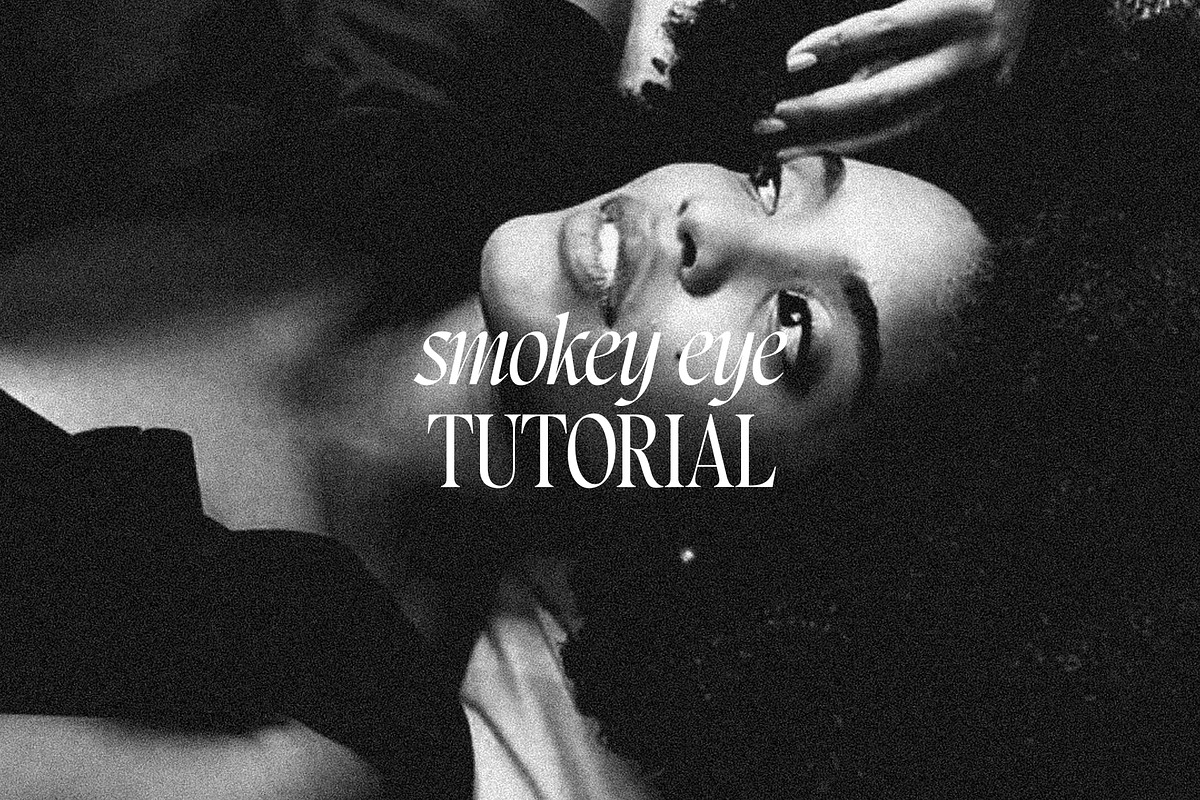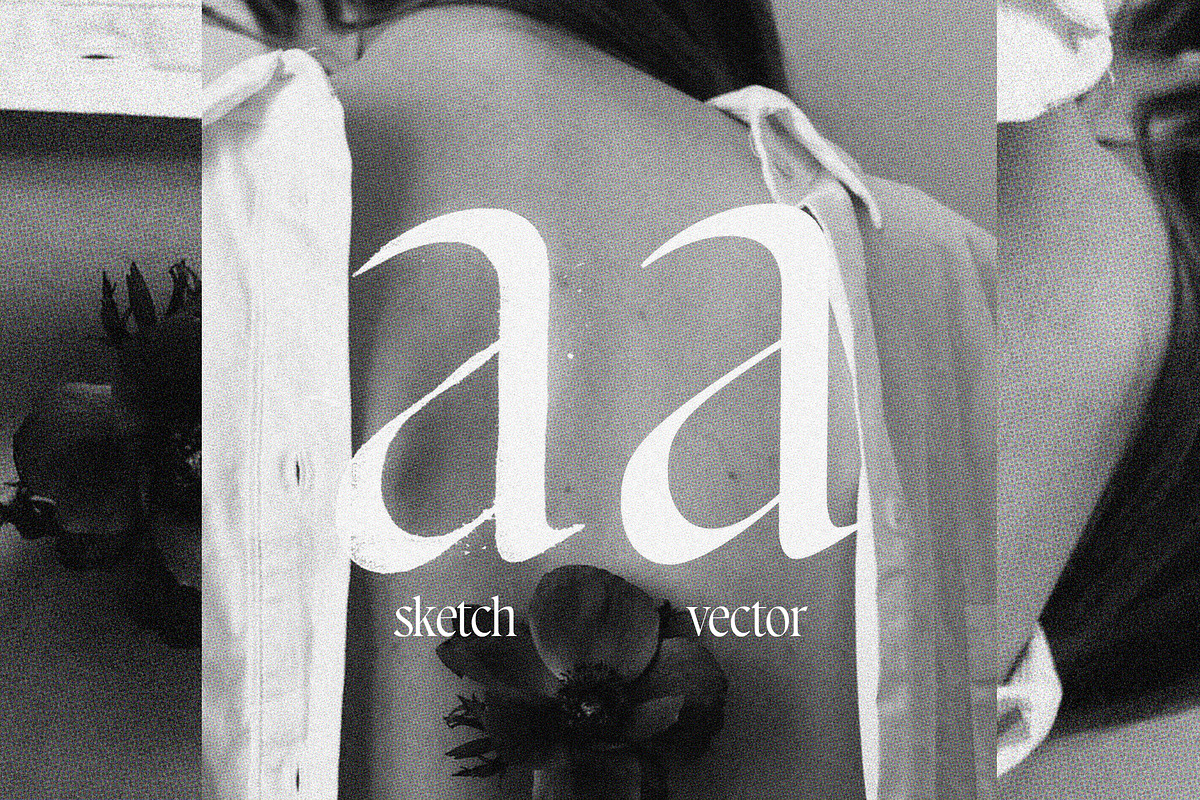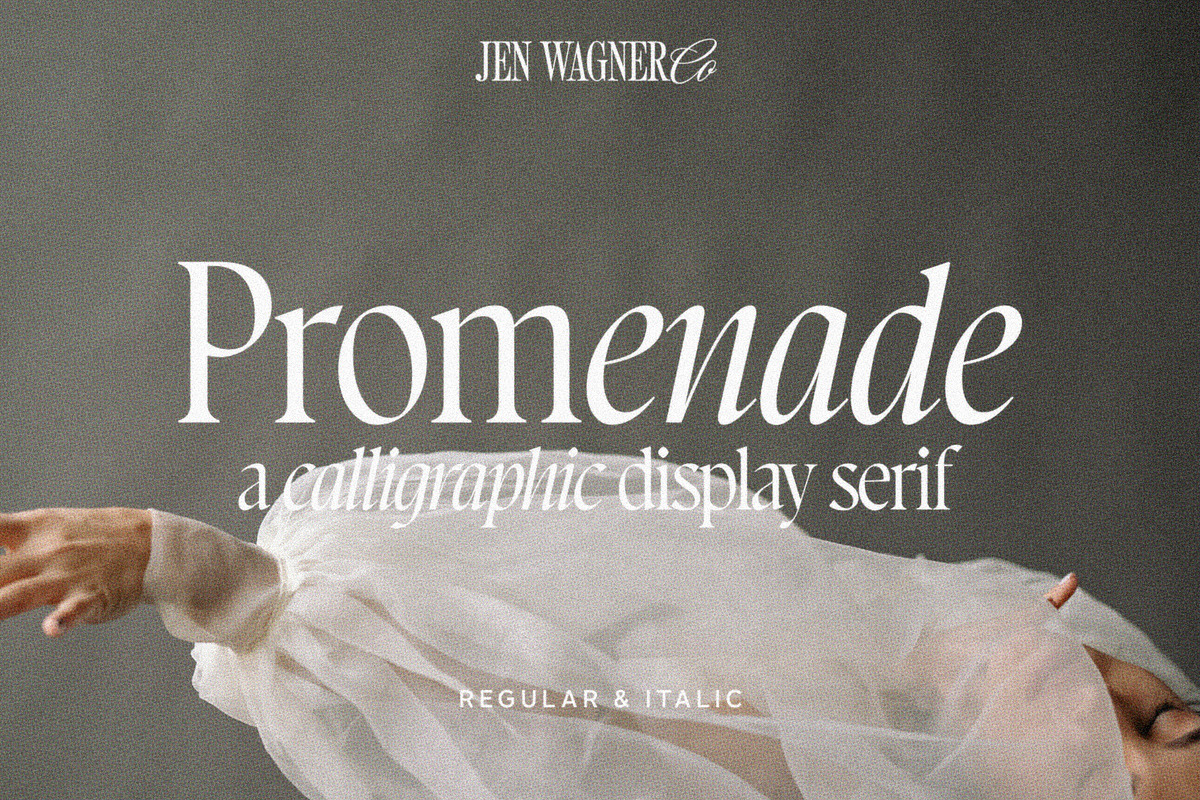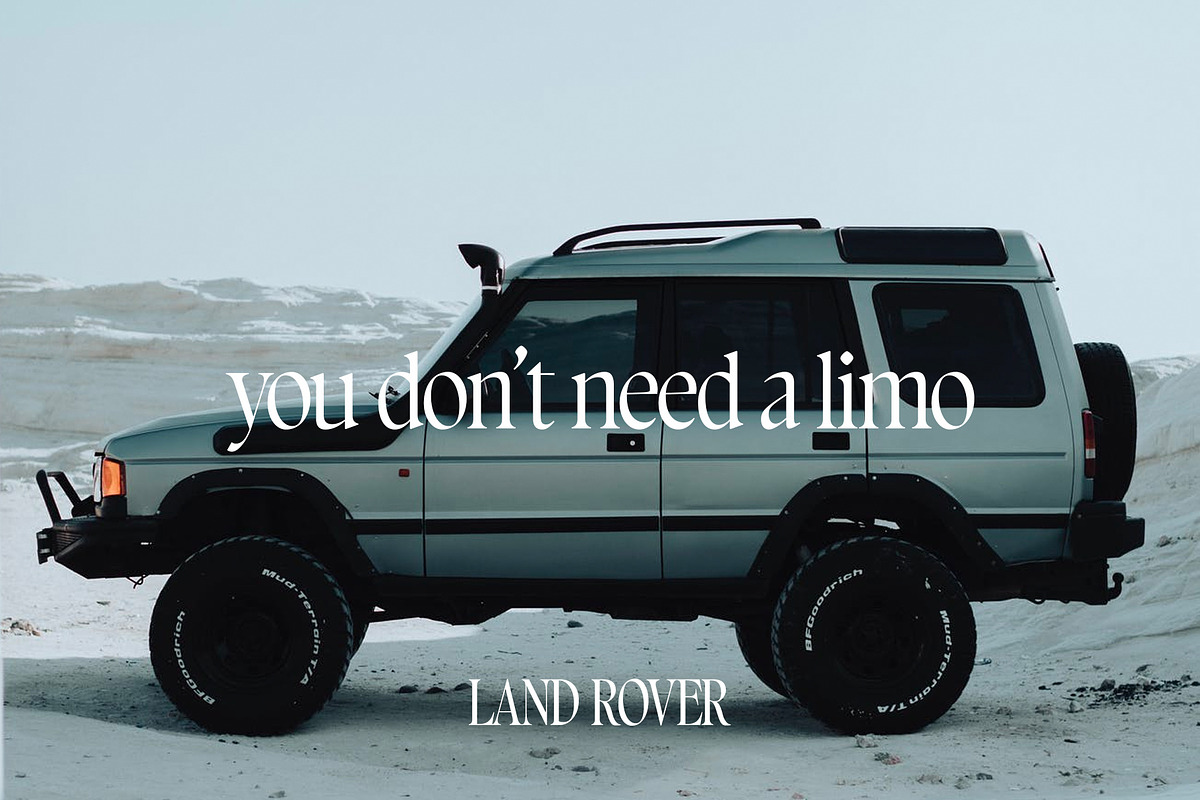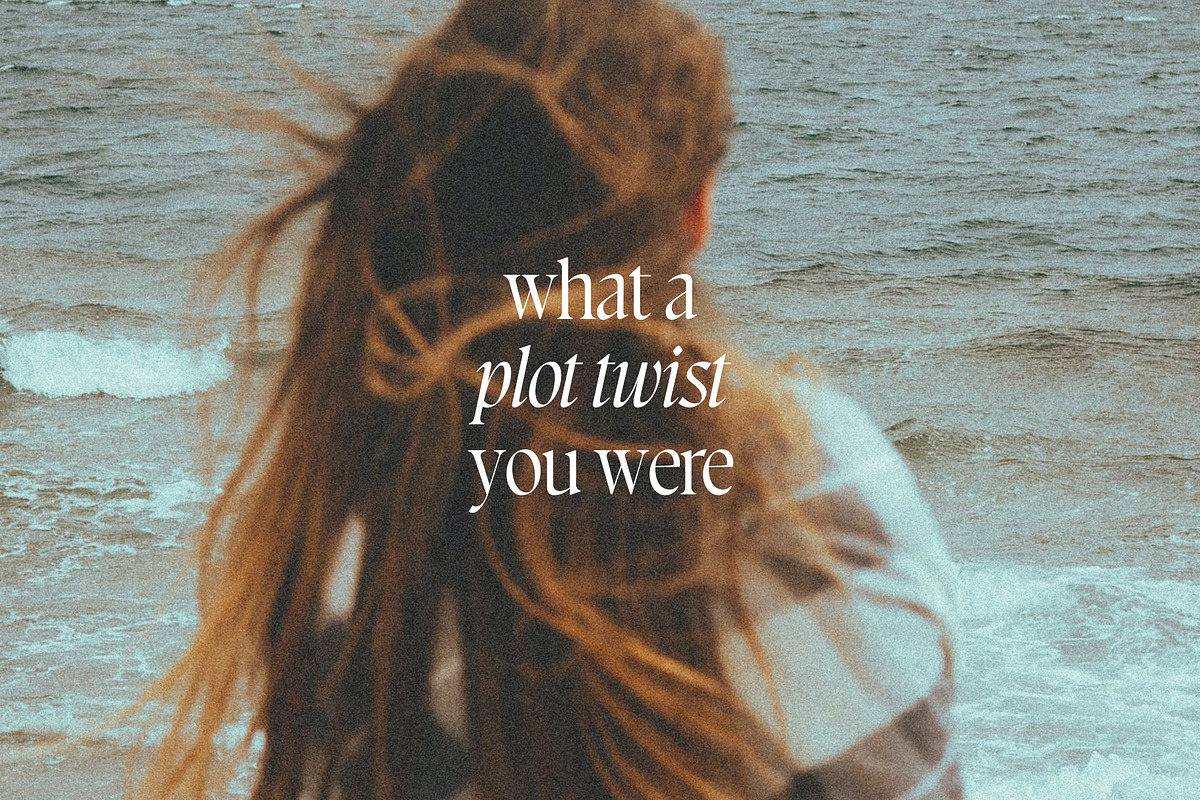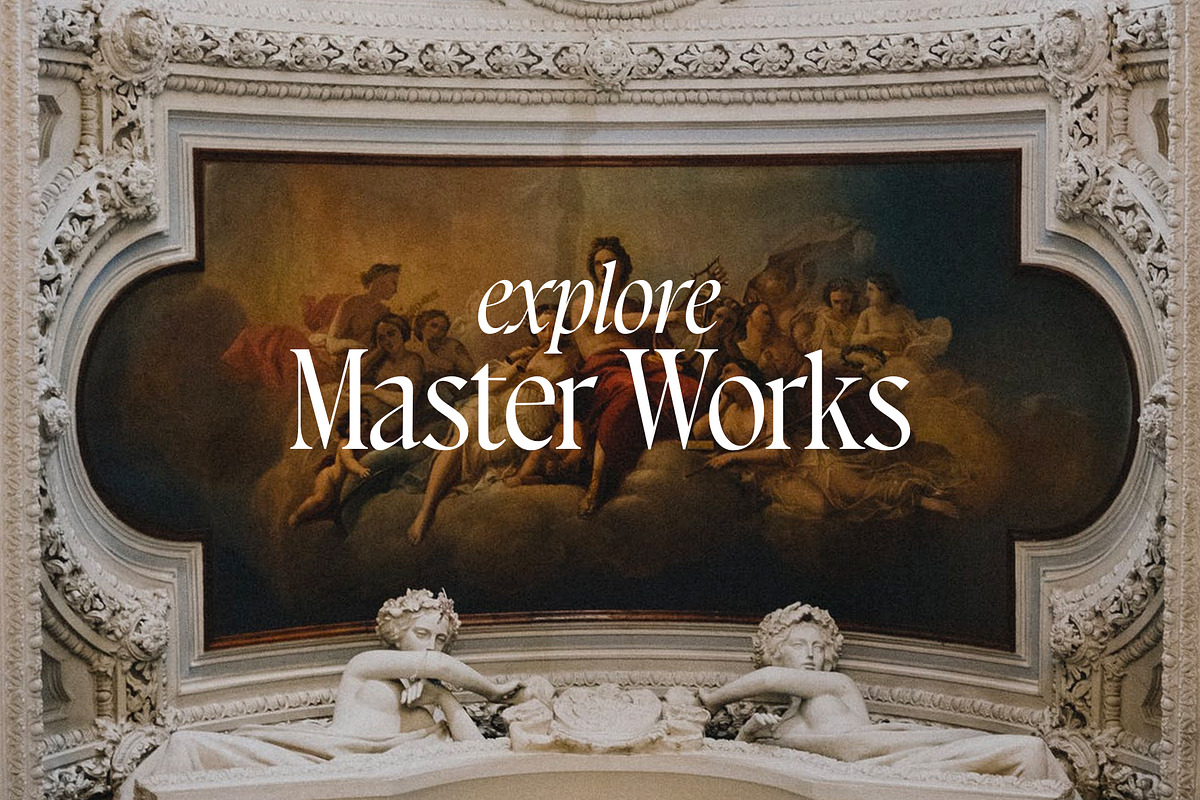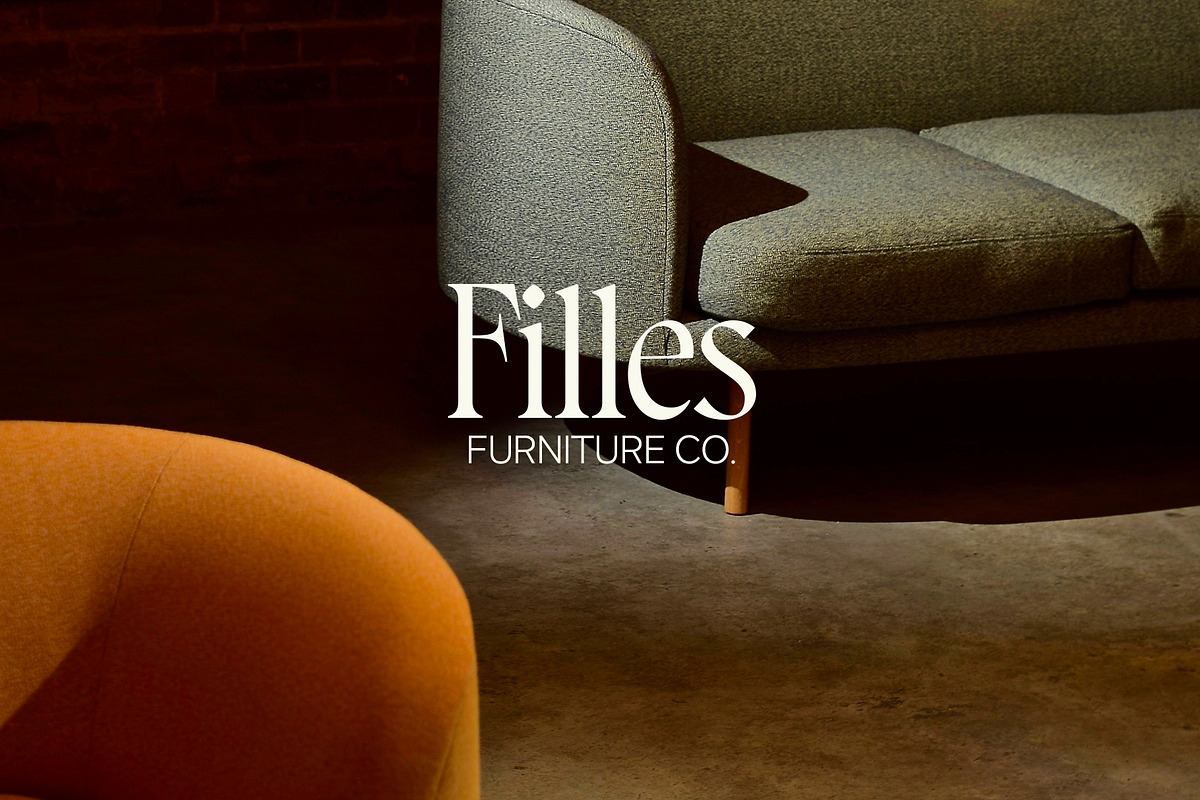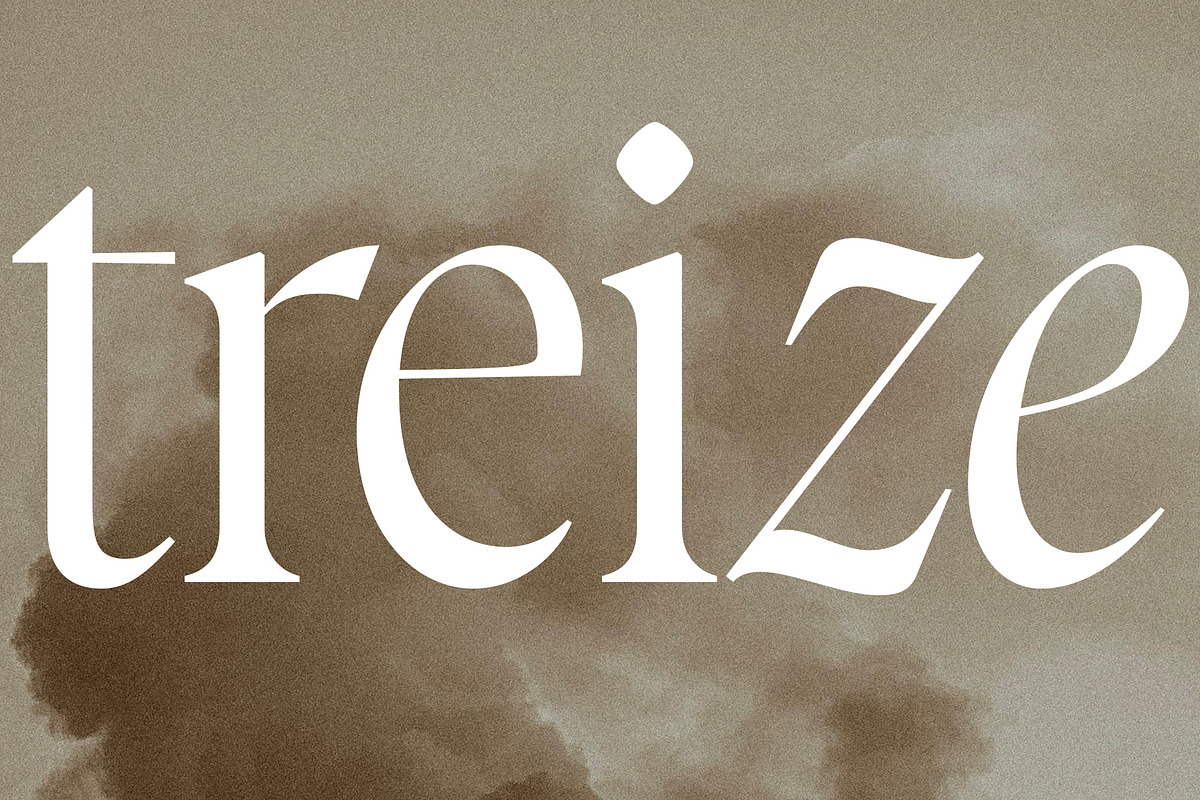
Promenade | A Calligraphic Serif
Introducing Promenade – a calligraphic serif that started on paper with a flat nib pen (see the 6th image), and blossomed into a full serif with italics.
At its core, this font is just... beautiful. It's elegant, it's crisp, it's delicate, but can still hold its own. As I was creating the graphics, I just couldn't get over the flow of the letters – especially the italic.
It's got class, but also isn't afraid to rock a pair of Doc Marten's.
Which of course spurred a conversation about how this font would take a Mercedes G-Series instead of a limo, and wear Doc Marten's instead of heels, but still wear the most gorgeous dress, and that is 100% Promenade (and inspo for the name – thanks, Jen!).
I've also been loving combining the regular and italic, especially for logos (see the "Friendfolk logo, image #2)
One thing to note about Promenade is the letter spacing. It was spaced for clean reading and intentional balance, so I recommend setting the spacing a little tighter if you want to create the display look found in many of the logo mockups(around -20 to -40 should do!).